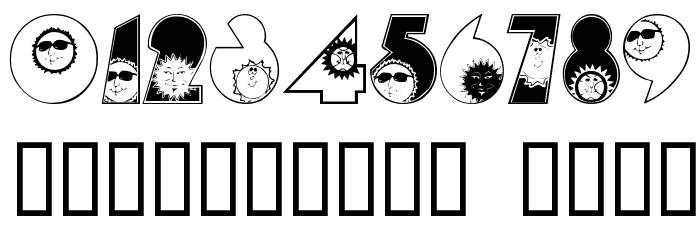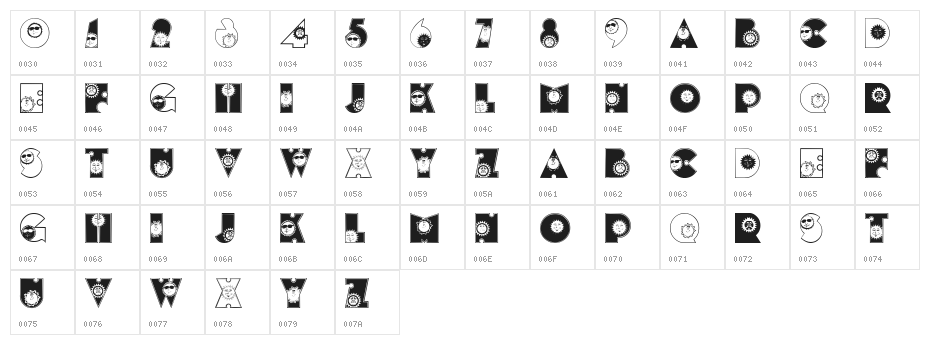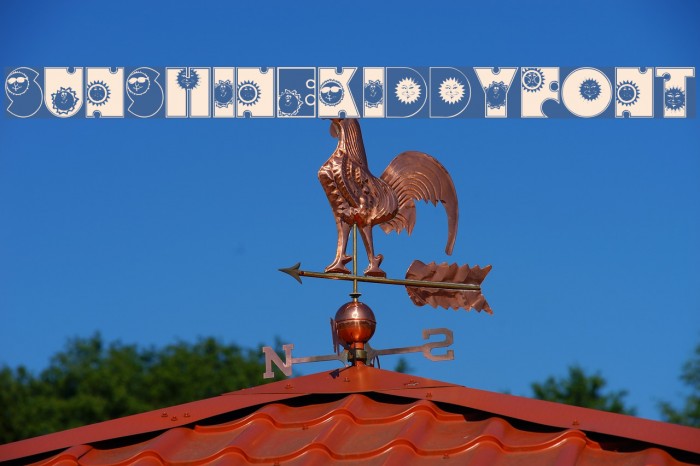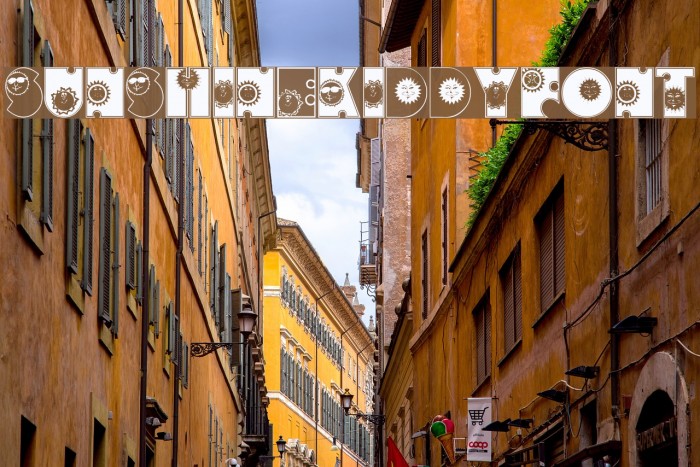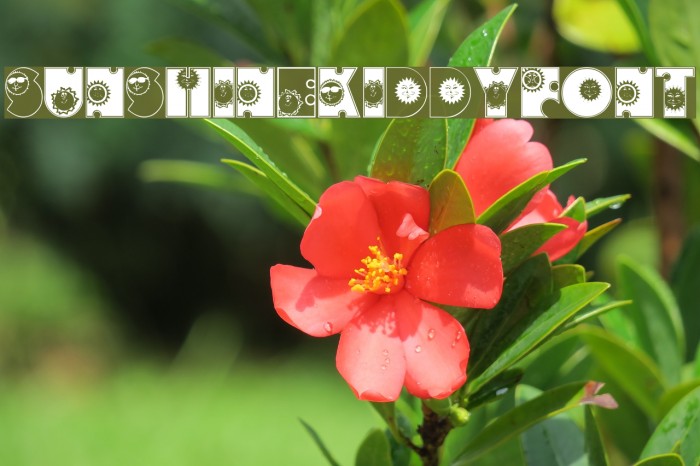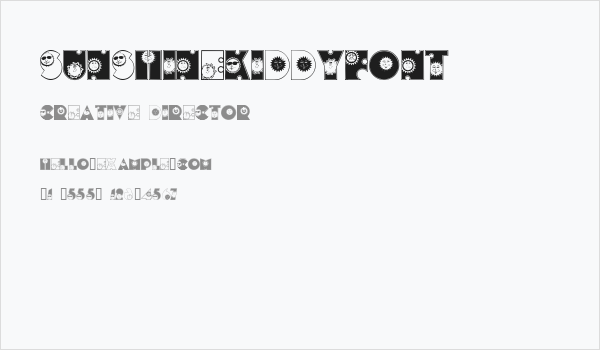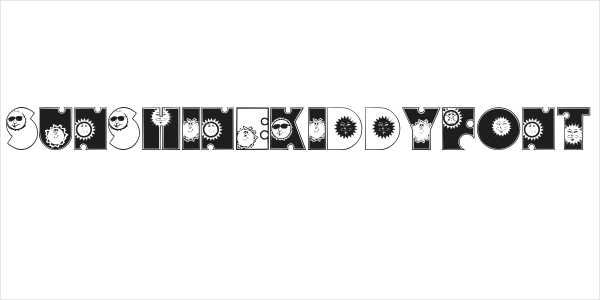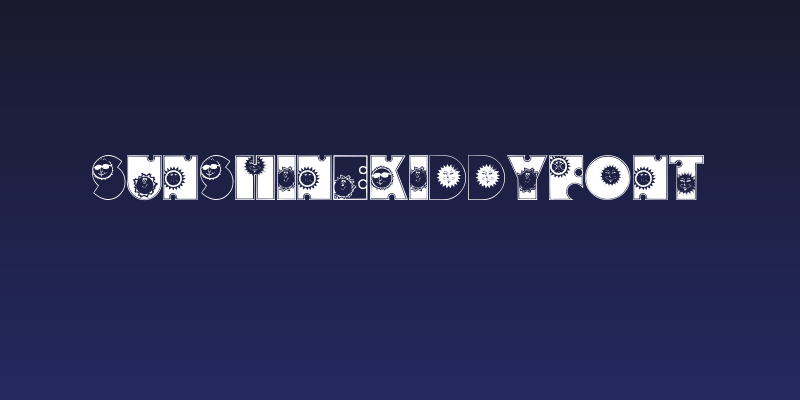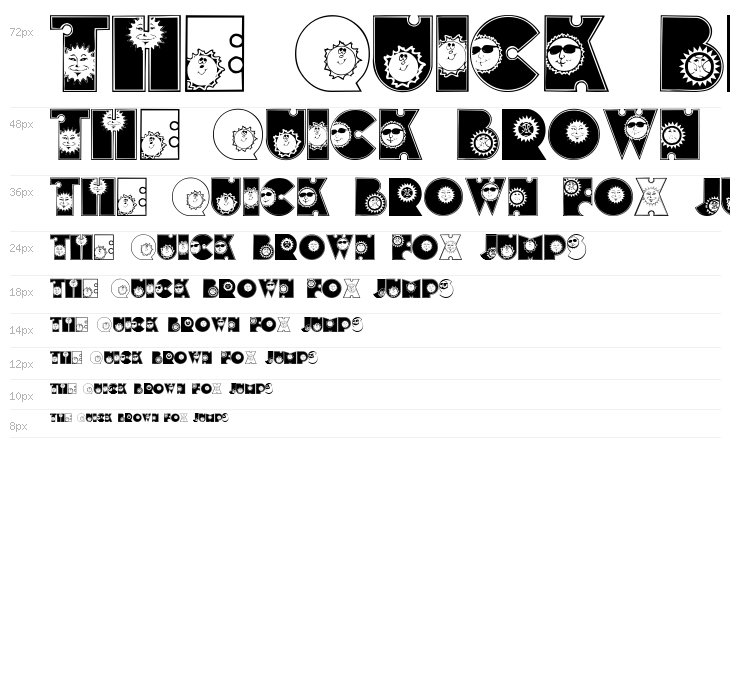
SunshineKiddyFont Font
SunshineKiddyFont Description
This playful and whimsical font features bold, blocky characters filled with cheerful sun and cloud illustrations. Each letter and number is uniquely designed with a combination of solid black and outlined shapes, incorporating smiling sun faces and fluffy clouds. The font exudes a fun and lighthearted vibe, making it ideal for projects aimed at children or for conveying a sense of joy and positivity. The characters are well-spaced, ensuring readability while maintaining their decorative appeal. This font is perfect for creative projects that require a touch of humor and brightness.
| Proposed Projects | Ideal for children's books, playful posters, birthday invitations, and summer-themed graphics. |